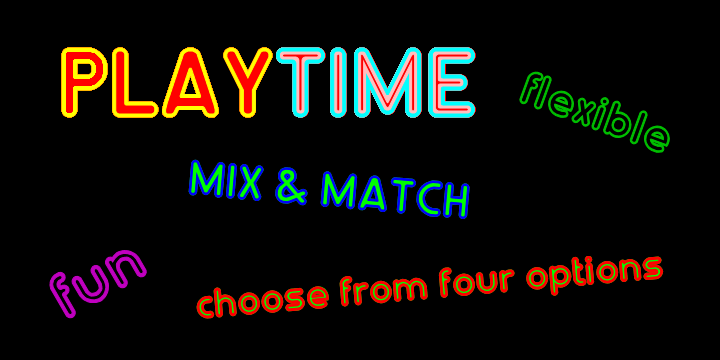
The Playtime family was conceived as a series of fonts that could be overlaid upon each other to provide a wide range of effects. Considerable effort has gone into ensuring that the consistant kerning of each font allows for accurate justification when using several members of the family in this way.
Due to the modular nature of this design there may be a slight lack of smoothness to the curves at very large point sizes (around 100 pt and above).